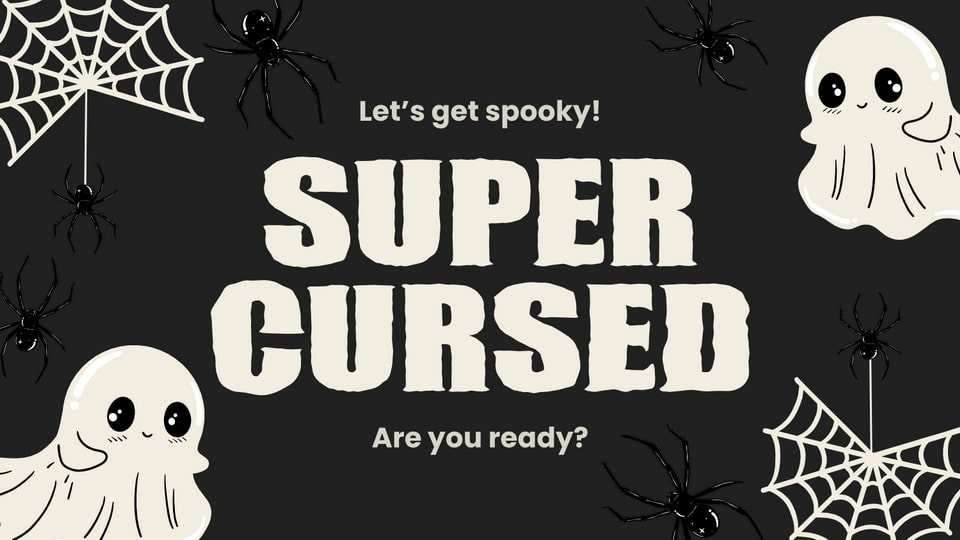
Download Super Cursed font, a spooky yet playful hand-drawn display typeface that brings Halloween fun to life with its irregular edges and chunky letterforms.